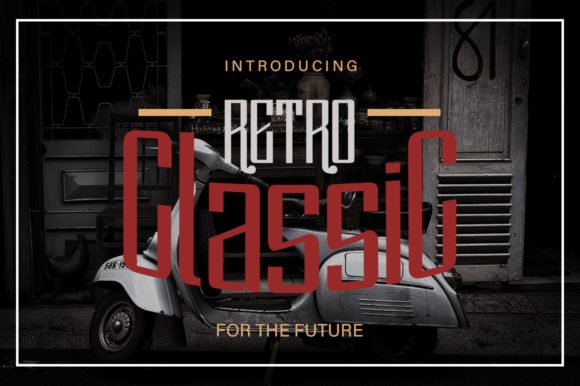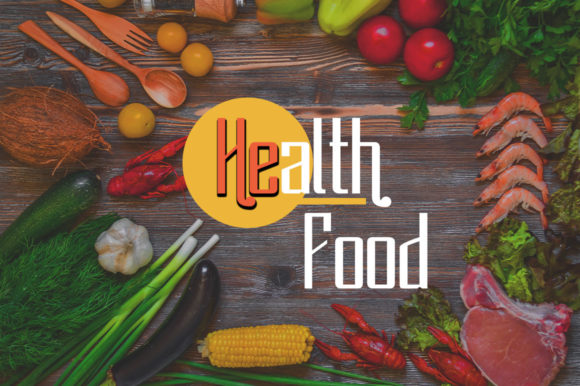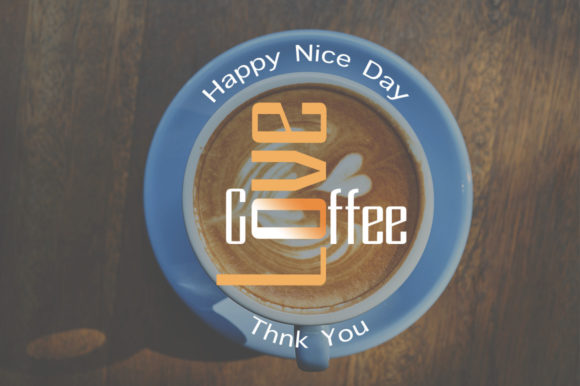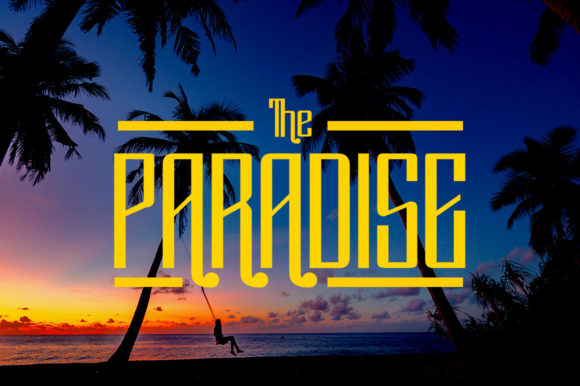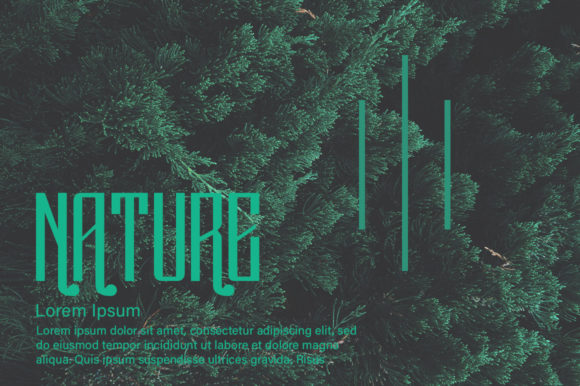
The Perfect Blend of Retro Charm and Modern Appeal
Do you remember the first time you saw a poster or a logo that just stopped you in your tracks? Maybe it was the way the font seemed to transport you to a different era, or the way it perfectly captured the essence of a brand. Whatever it was, that moment is what drives designers to continually push the boundaries of creativity. For those who want to evoke a sense of nostalgia and timelessness, Classic Font is the perfect choice.
Classic Font is a stylish and eye-catching display font that’s designed to make a statement. Whether you’re working on a corporate identity, a music project, or a comic book, this font is sure to add a touch of sophistication and flair. Its versatility makes it a valuable asset for designers, allowing them to create unique and memorable designs that stand out from the crowd.
Key Features of Classic Font
- Unique Characteristics: Classic Font features a distinctive serif design with subtle flair at the ends of the strokes, giving it a timeless and elegant appearance.
- Legibility: The font is carefully crafted for optimal legibility, making it easy to read in both print and digital formats.
- Comprehensive Character Set: Classic Font includes a comprehensive set of characters, including Latin, Greek, and Cyrillic alphabets, as well as a range of punctuation and symbol glyphs.
Designer Review: Classic Font
Overall, I have mixed feelings about the Classic Font. On the one hand, it’s a timeless choice that works well in many situations. ✨ It’s clean, elegant, and easy to read, making it a great option for body text or headlines. The font’s classic feel also makes it a safe choice for branding and corporate materials.
- Legibility: The font is highly legible, even at smaller font sizes.
- Timelessness: The Classic Font’s classic design ensures it will remain relevant for years to come.
- Flexibility: It works well in both print and digital formats.
However, there are some limitations to consider. ⚠️ The font’s lack of personality and uniqueness may make it feel unremarkable in certain contexts. Additionally, the font’s classic feel can sometimes come across as outdated or unadventurous.
In conclusion, the Classic Font is a solid choice for projects where a timeless, elegant look is desired. While it may not be the most exciting or memorable font, it’s a reliable option that will get the job done. With careful use and attention to context, the Classic Font can be a great asset to any design project.
Classic Font: A Practical Application Guide
Tips for Getting the Most Out of the Classic Font
The Classic Font is ideal for creating a timeless and elegant look. To get the most out of it, use it for:
- Menus and brochures
The Classic Font is commonly used for:
- Formal documents and reports
- Marketing materials and branding
- Historical and vintage-themed designs
Compared to Classic Font, Georgia has a more traditional feel and is often used in formal settings. Classic Font is more versatile, but Georgia is a better choice when you need a classic, elegant look.
Compared to Classic Font, Merriweather has a more modern feel, with a slightly condensed x-height. Classic Font is more traditional, while Merriweather is a better choice when you need a modern, yet classic look.